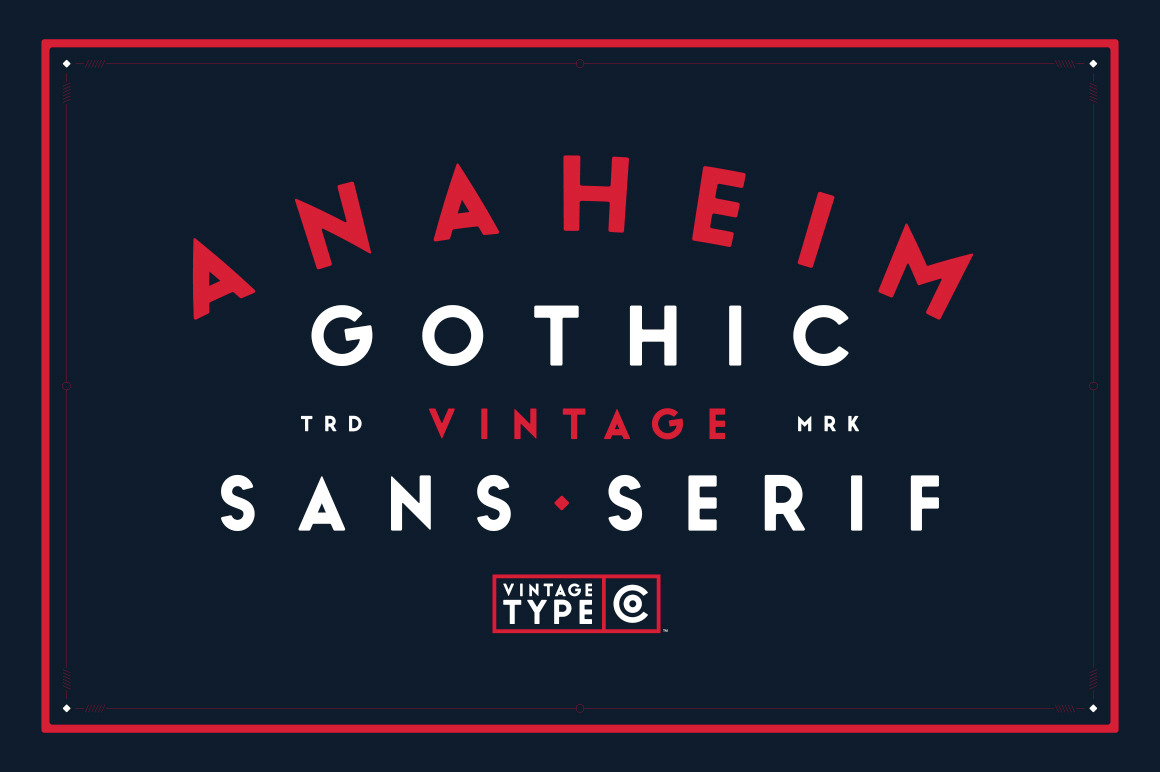
Anaheim Gothic Font
Anaheim Gothic is a bold, geometric, sans serif display font inspired by and designed for vintage logo & packaging design. Despite this, Anaheim Gothic works for a wide variety of applications and is sure to be your new favourite weapon of choice.
The font comes with full upper & lower case, including a couple of basic ligatures, and also comes equipped with multilingual support for the following languages:
Breton, Catalan, Czech, Danish, Estonian, English, Finnish, French, German, Icelandic, Italian, Latvian, Lithuanian, Norwegian, Portuguese, Romanian, Scottish Gaelic, Slovak, Slovenian, Spanish, Swedish, Turkish, Welsh.